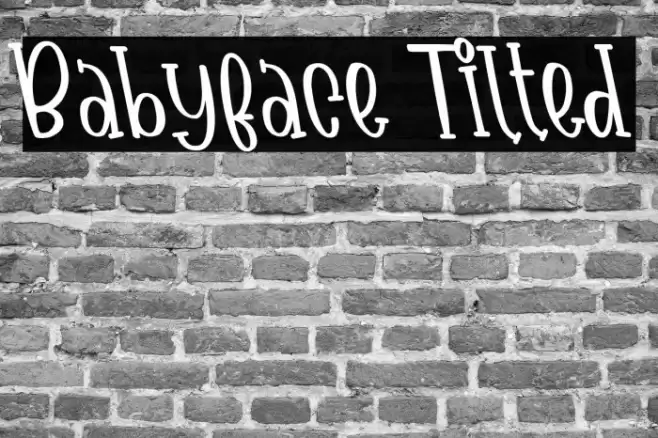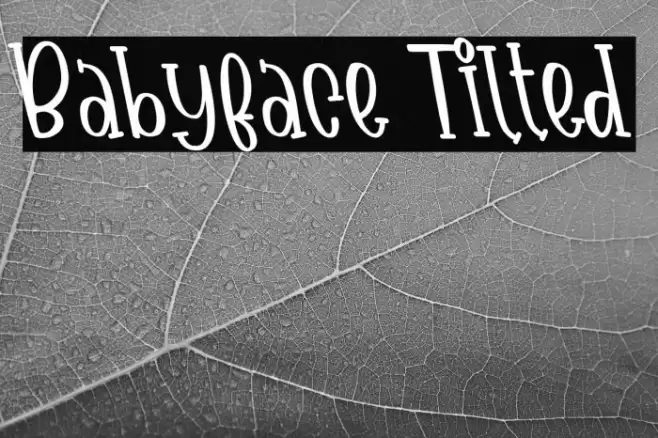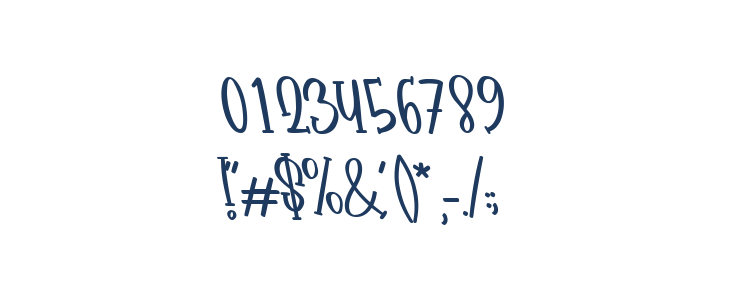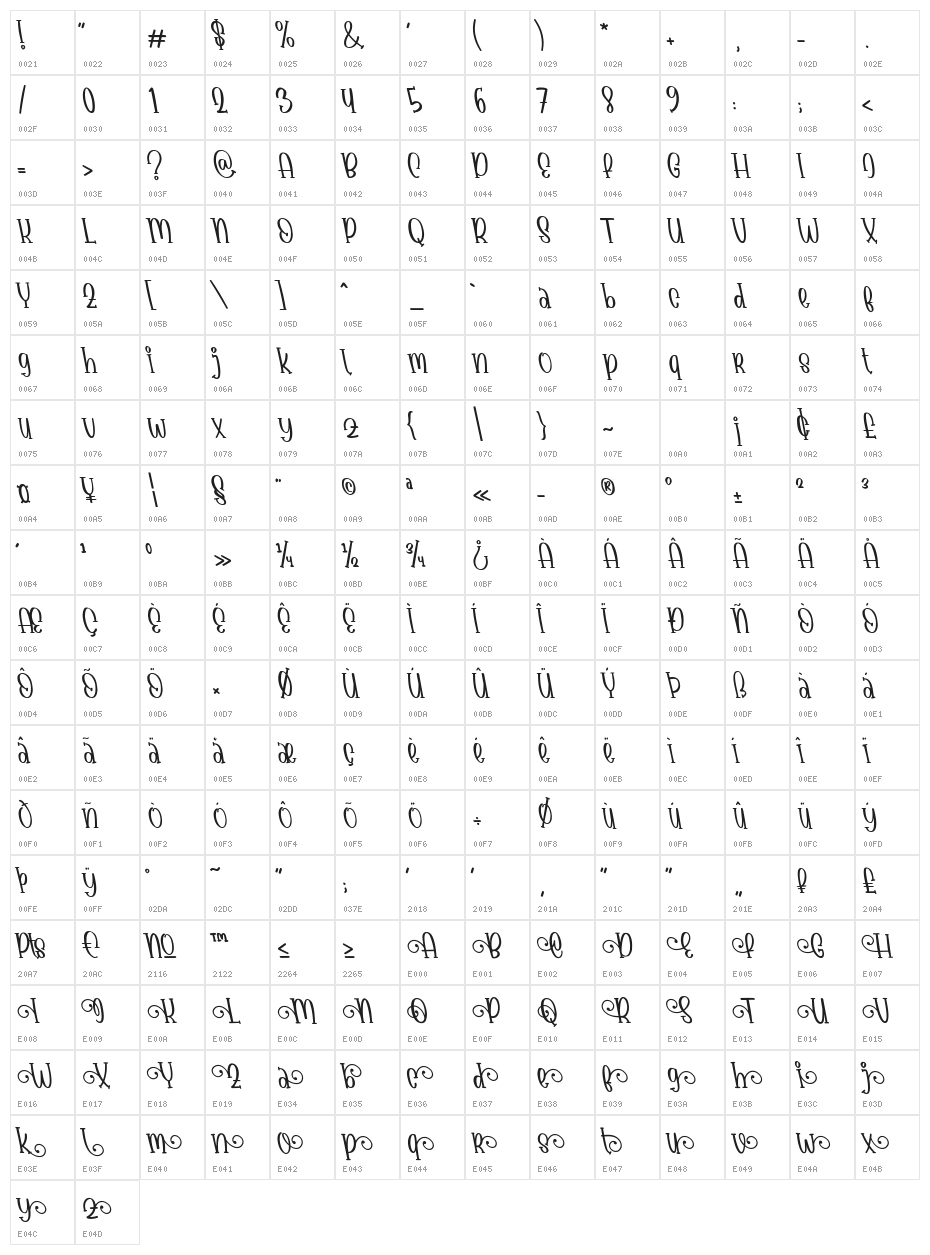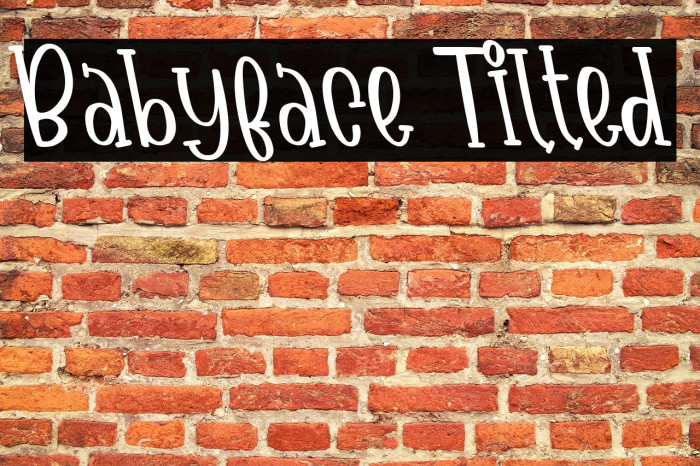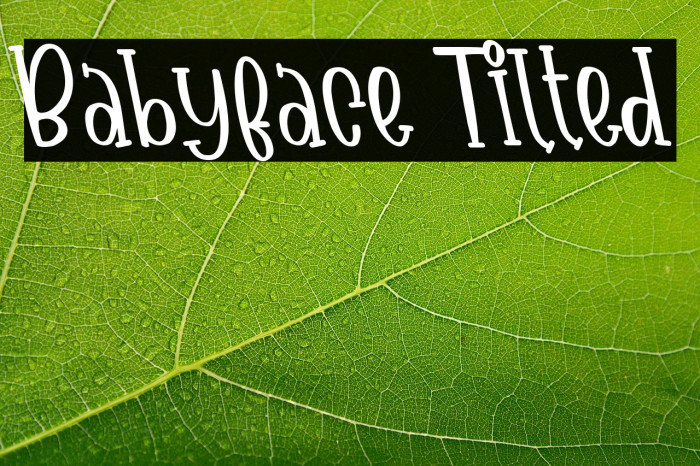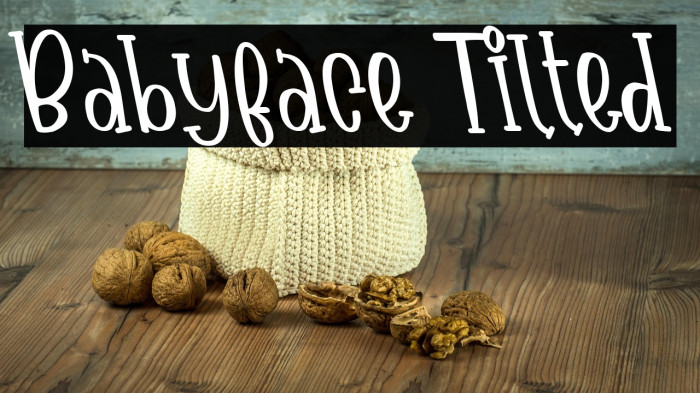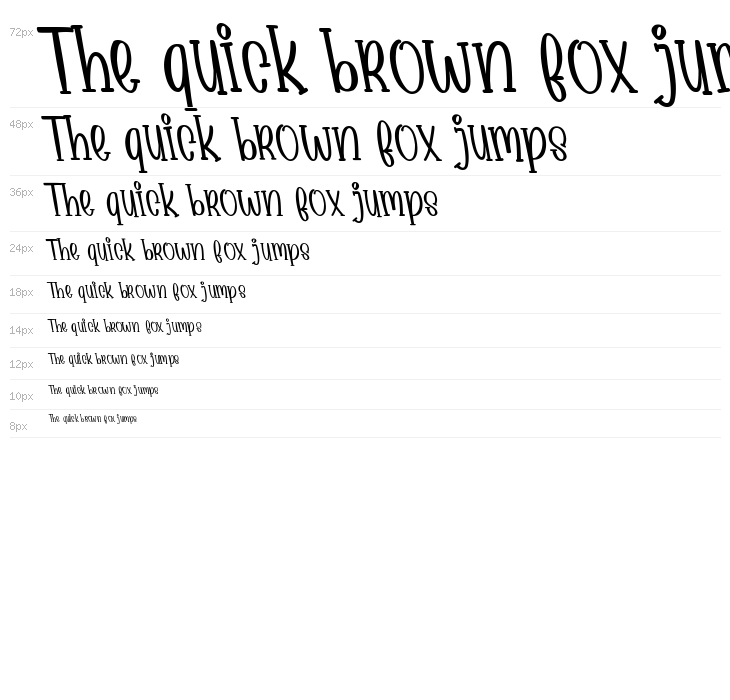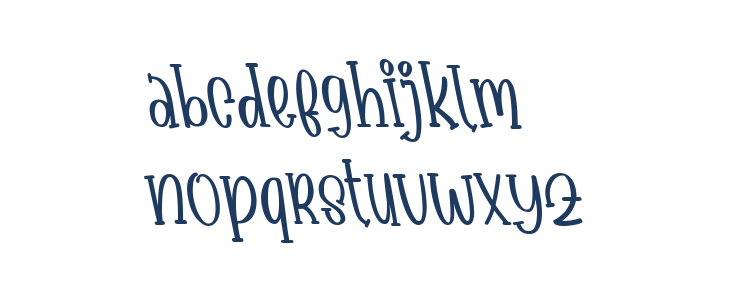
Babyface Tilted Font
Babyface Tilted Description
This playful and whimsical font features a unique tilted design that adds a sense of fun and creativity to any project. The characters are bold and slightly condensed, with a distinctive slant that gives them a dynamic and lively appearance. The uppercase and lowercase letters maintain a consistent style, with rounded edges and a smooth flow. The numerals and special characters are designed to match the overall aesthetic, ensuring a cohesive look. This font is perfect for projects that require a touch of personality and charm.
A playful, tilted font with bold, condensed characters and a whimsical style from Uncategorized fonts.
- Proposed Projects: Ideal for children's books, playful branding, greeting cards, and creative posters.
- Overall Style: Playful, Whimsical